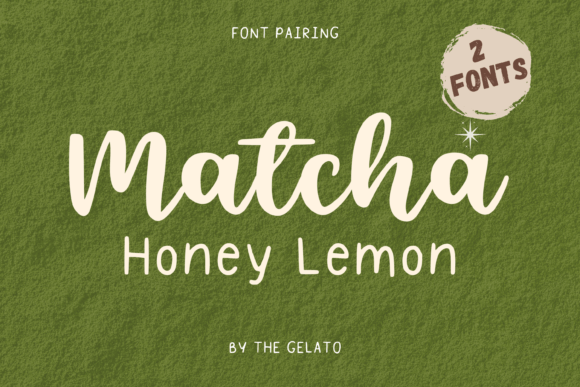
Unleash your creativity and let your designs bloom with Matcha Honey Lemon Font, a modern script font exuding elegance and charm. Each meticulously crafted letter dances across your screen, leaving a trail of exquisite beauty that captivates the eyes. Whether you're a seasoned designer or just starting, Matcha Honey Lemon's delicate touch will elevate your projects to new heights of sophistication.
Picture this: a stunning wedding invitation adorned with Matcha Honey Lemon's graceful curves, carrying the echoes of love and commitment. Or perhaps, a captivating branding project that exudes a sense of luxury and distinction, thanks to Matcha Honey Lemon's distinctive personality. And for those seeking to make a lasting impression with their editorial work, Matcha Honey Lemon's refined elegance will leave readers spellbound.
With Matcha Honey Lemon, the possibilities are endless. Its versatility knows no bounds, allowing you to create designs that resonate with your audience on a deeper level. From the delicate strokes of a love letter to the bold statements of a marketing campaign, Matcha Honey Lemon adapts seamlessly, adding a touch of magic to every word.
Don't just take our word for it. Step into the world of Matcha Honey Lemon and let the font's enchanting aura work its magic on your designs. Experience the joy of creating something truly remarkable, something that leaves a lasting impression. Make your designs stand out from the crowd, let Matcha Honey Lemon be your creative companion, and watch your projects flourish into masterpieces.
At The Gelato, we believe in the transformative power of typography. We poured our hearts into creating Matcha Honey Lemon, ensuring that every curve and line carries a story of love, beauty, and boundless creativity. Join us on this journey of artistic expression and let Matcha Honey Lemon ignite your imagination. Embrace the font that will redefine your design aesthetic and leave an indelible mark on the hearts of your audience.